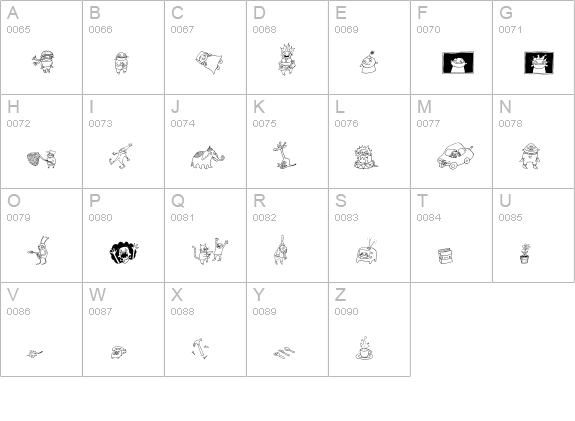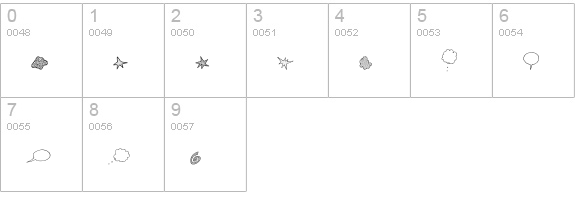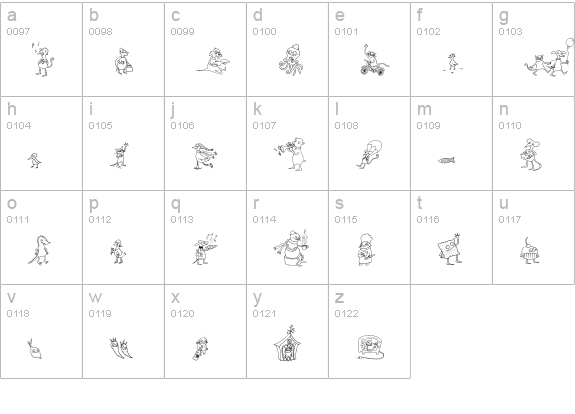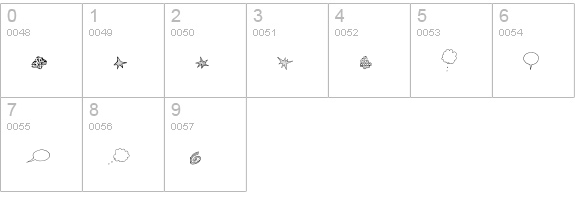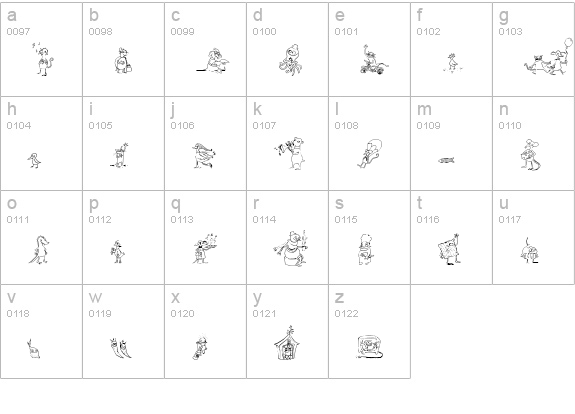
Chicken Font Details
The Chicken font is a whimsical and playful typeface that will add a touch of charm to any design project. Featuring quirky chicken-themed characters, this font is sure to bring a smile to your audience's faces. Whether you're working on a children's book, farm-themed invitation, or just want to add a fun twist to your graphic designs, the Chicken font is the perfect choice. Best of all, the Chicken font is available for free download at FontsMarket.com. So, you can easily add this delightful font to your collection without breaking the bank. Don't miss out on the chance to bring some feathered fun to your projects with the Chicken font!